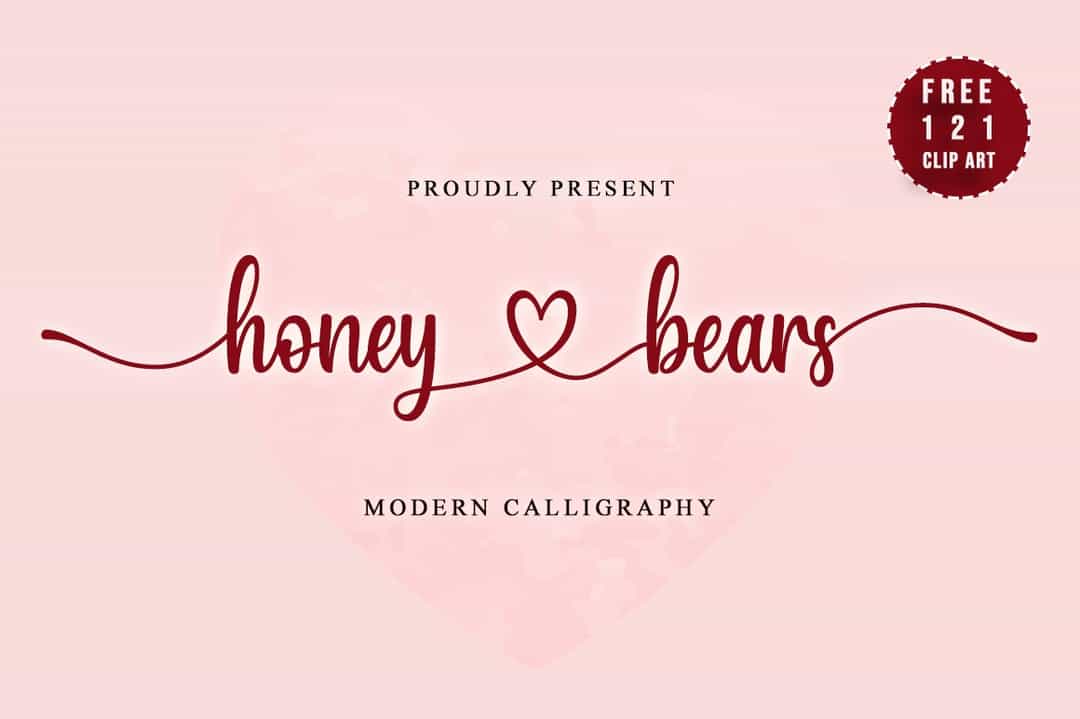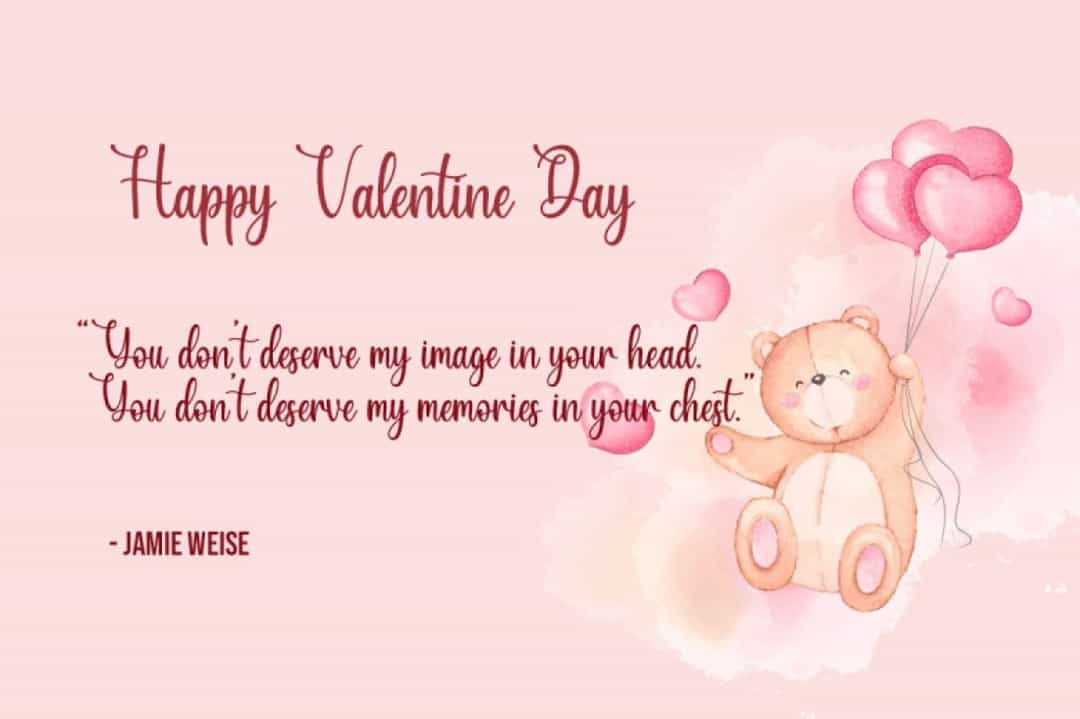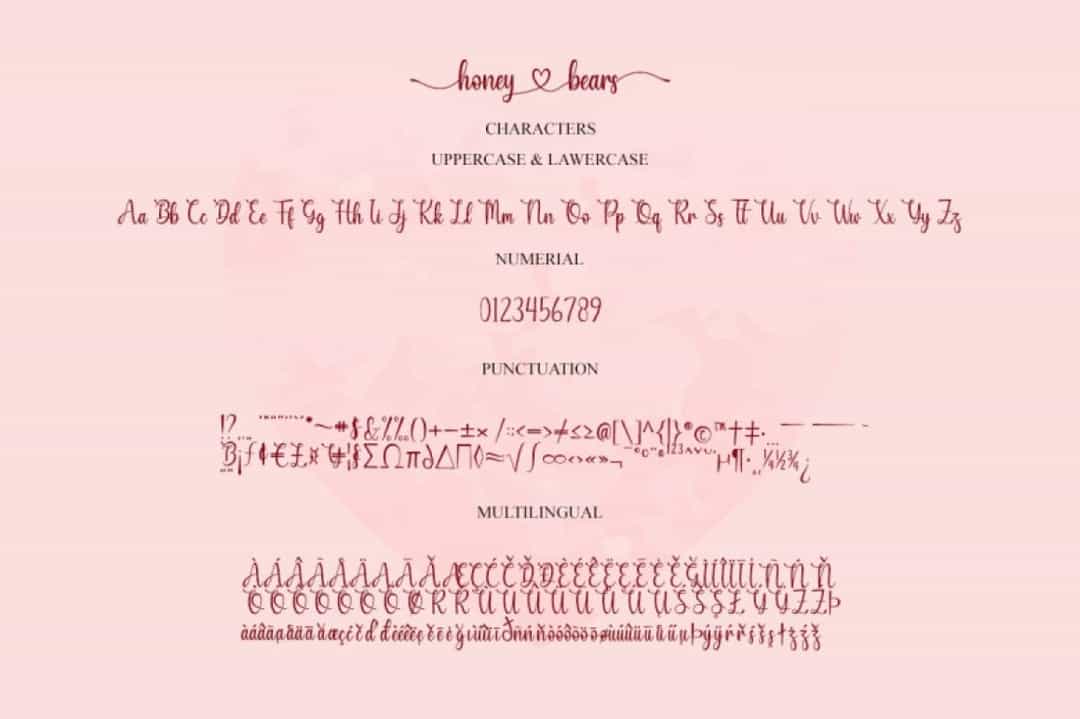
Honey Bears is a beautiful calligraphy font with a nice and fluid texture. This font is also suitable for invitations, thank you cards or quotations and greeting cards, business cards or logos of any design.